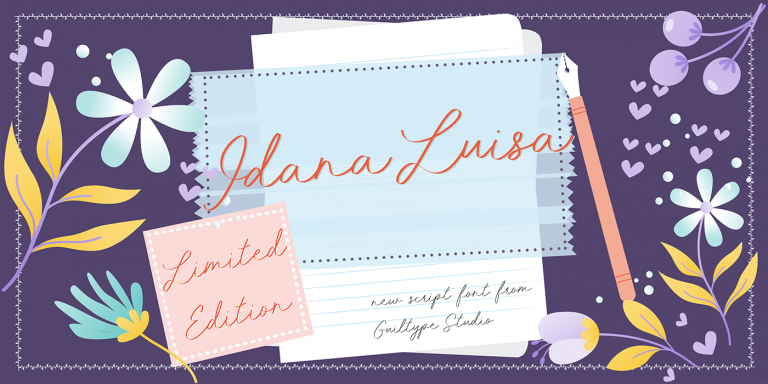
Idana Luisa Script Font
Hi Ladies and Gentleman ! I’m super proud to introduce Idana Luisa Font! Idana Luisa is a beautiful and contemporary signature font, perfect for use in fashionable editorials and more. This font has a free-flowing and feminine appeal, and works well in titles and headlines.